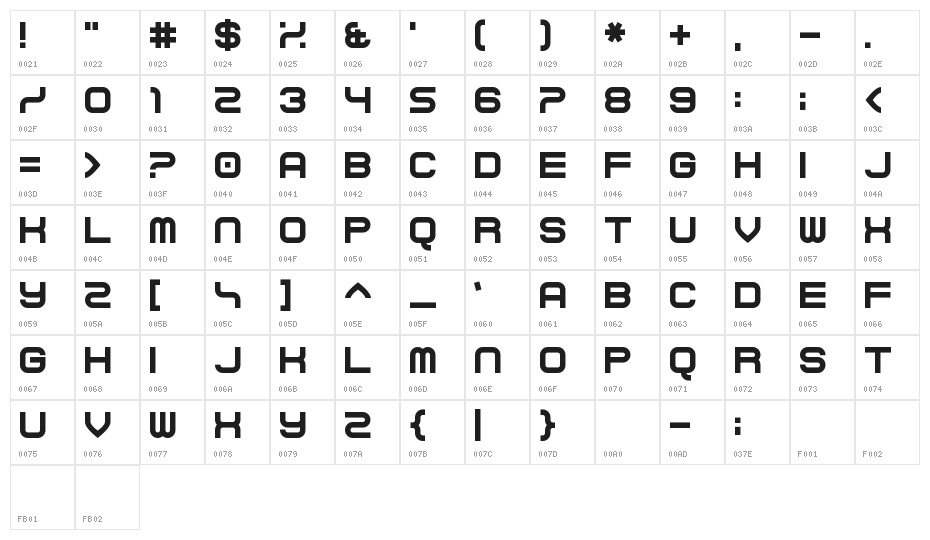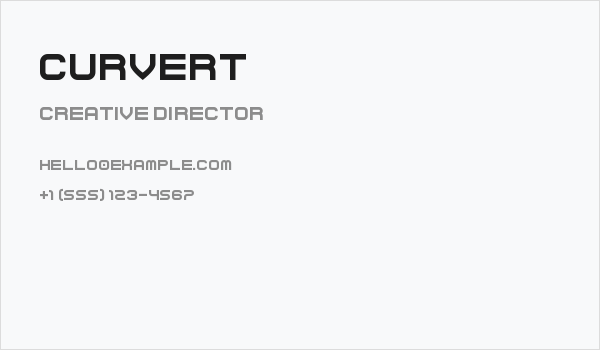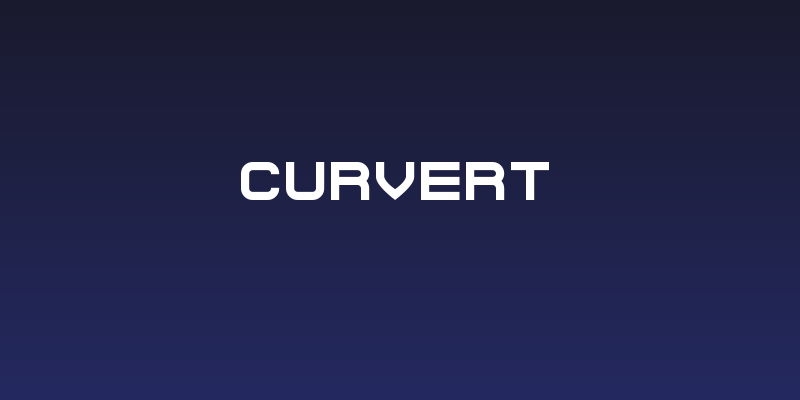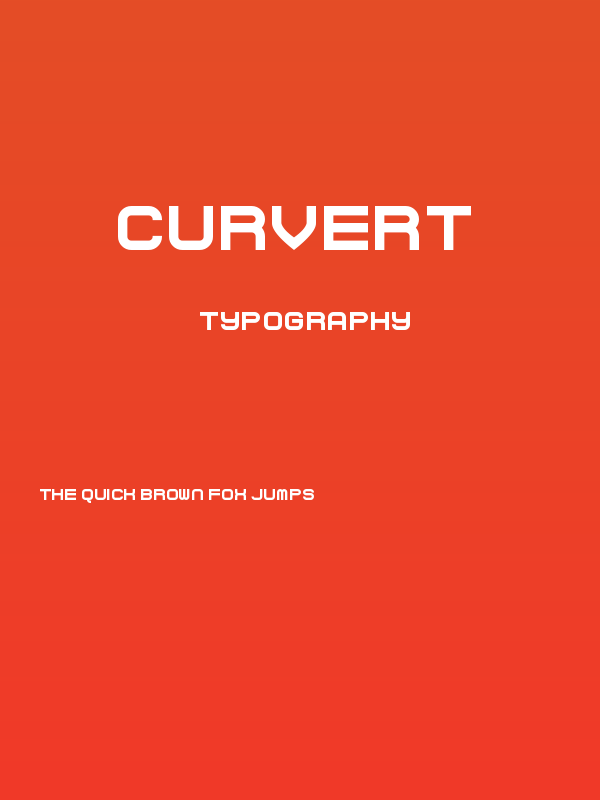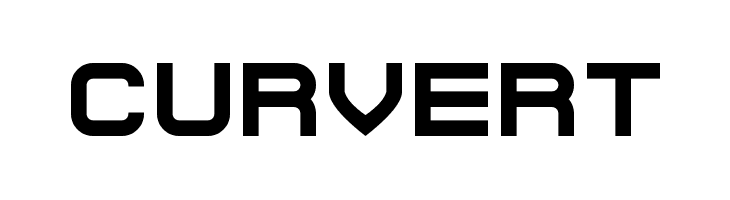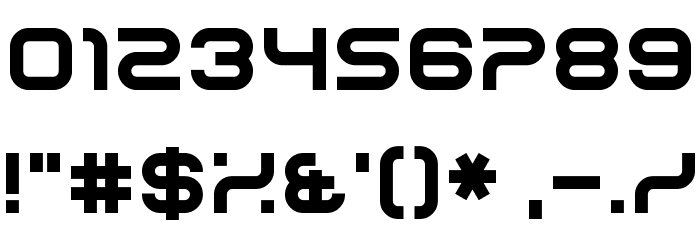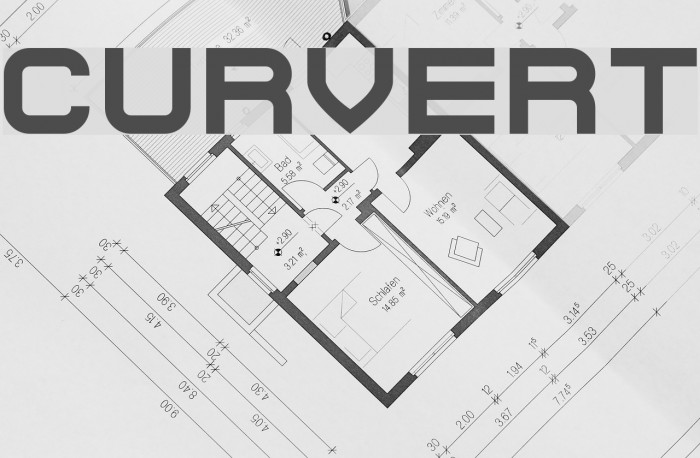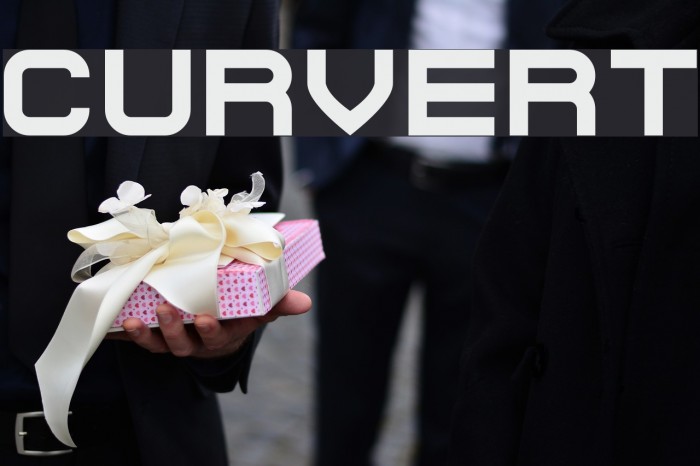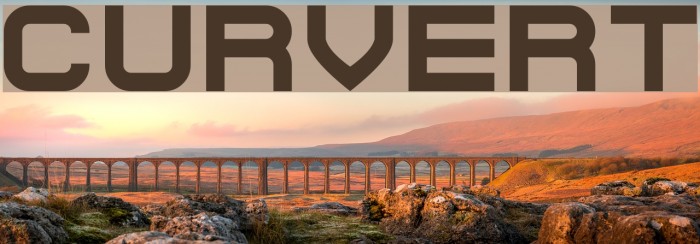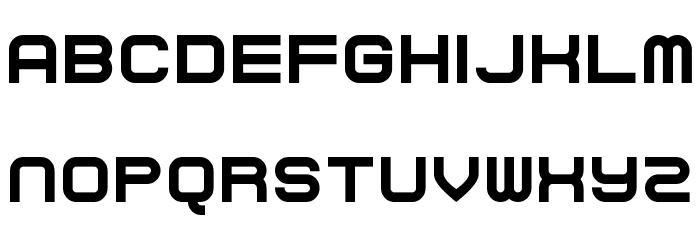
Curvert Font
Curvert Description
This font features a modern, geometric style with a strong emphasis on clean lines and rounded edges. The characters are bold and uniform, creating a cohesive and structured appearance. The uppercase and lowercase letters maintain a consistent height, contributing to its balanced look. The numerals and special characters are designed to match the overall aesthetic, ensuring a seamless integration across different uses. Its futuristic vibe makes it suitable for contemporary design projects.
| Proposed Projects | Ideal for technology branding, modern advertising, and futuristic design projects. |